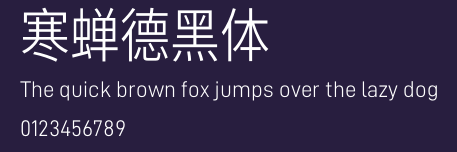
• Font Name: 寒蝉德黑体
• Full Font Name: 寒蝉德黑体Regular
• PostScript Name: ChillDINGothic_Regular
• Designer: ChillDINGothic {Warren2060}; Source Han Sans {Ryoko NISHIZUKA 西塚涼子 (kana, bopomofo & ideographs); Paul D. Hunt (Latin, Greek & Cyrillic); Sandoll Communications 산돌커뮤니케이션, Soo-young JANG 장수영 & Joo-yeon KANG 강주연 (hangul elements, letters & syllables)}
• Manufacturer: ChillType&Adobe
About 寒蝉德黑体.otf
寒蝉德黑体.otf is a modern, elegant sans-serif font designed for ultimate readability and visual harmony. Perfect for branding, headlines, web design, and print materials.